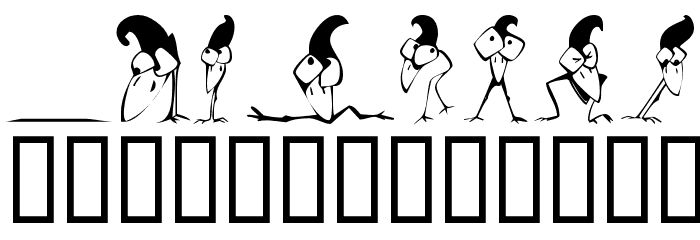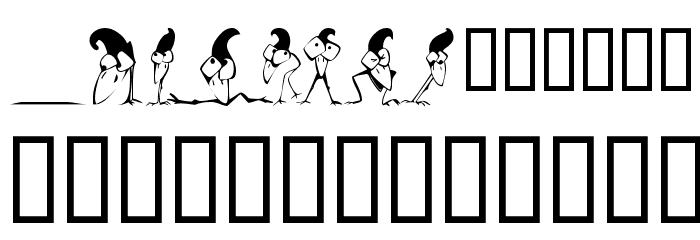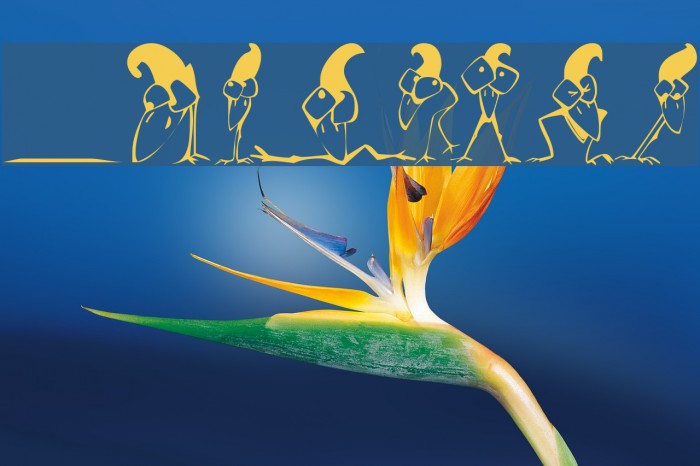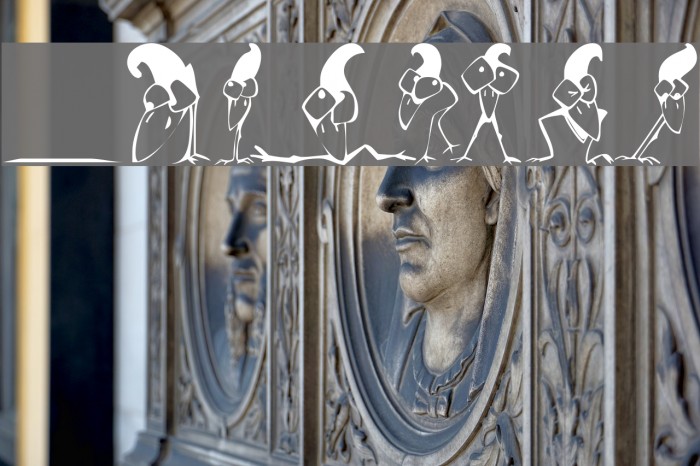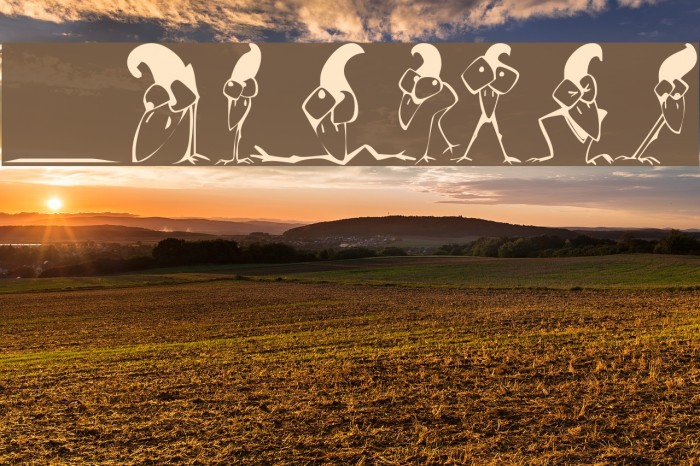
KR Crazy Crow Font
This font features a whimsical and playful design, characterized by cartoonish crow illustrations that replace traditional letterforms. Each character is represented by a unique crow in various quirky poses, adding a humorous and lighthearted touch to any project. The font is highly decorative and not suitable for body text, but it excels in creating a fun and engaging visual impact. The crows are drawn with bold lines and exaggerated features, making them stand out prominently. This font is perfect for projects that require a distinctive and entertaining style.
A playful, crow-themed decorative font with cartoonish characters.
- Proposed Projects: Ideal for children's books, comic strips, playful posters, and novelty items.